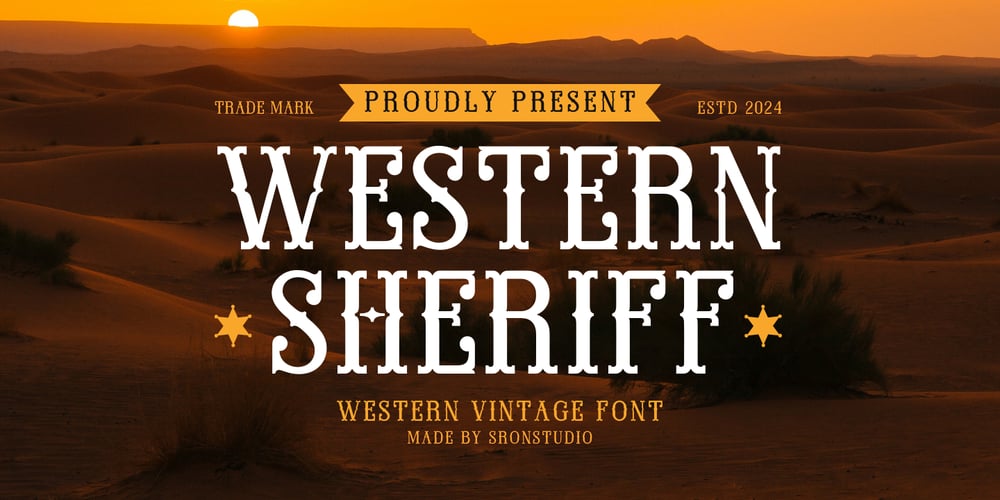
Western Sheriff
Western Sheriff font
Western Sheriff Font Family was designed by Muhamad Yusron Billah and published by Sronstudio. Western Sheriff contains 1 styles and family package options. Western Sheriff is a bold and rugged western-style font that captures the spirit of the Old West. With its vintage charm and strong character, this font is perfect for posters, branding, logos, and any design that needs a touch of cowboy flair. Bring the wild west to life with Western Sheriff!Included:- Upper & Lowercase- Numeral & Punctuation- PUA Encoded- Multilingual support- Simple Installation- Work both on Mac and WindowsThank you very much ๐Ÿ™‚